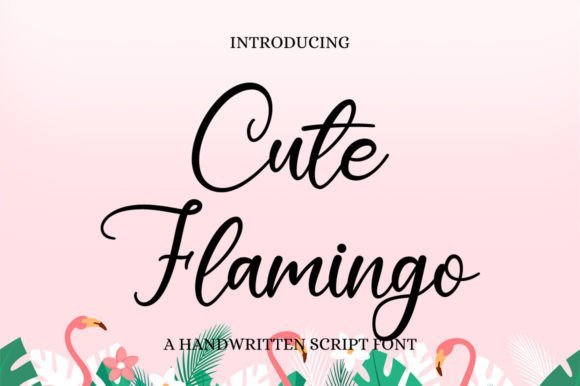
Remember the moment when a single font choice completely elevated your design project? For many of us, it’s a feeling of pure joy and accomplishment. Whether you’re a seasoned designer or a creative enthusiast, finding the right font can be a game-changer. In this article, we’ll introduce you to a font that’s sure to bring a smile to your face – the lovely and timeless Cute Flamingo Font.
This handwritten font is a dream come true for designers looking to add a personal touch to their logos, branding, and quotes. Its unique charm and character make it the perfect choice for creating eye-catching and memorable designs. With the Cute Flamingo Font, you’ll be able to infuse your work with a sense of whimsy and personality that’s sure to resonate with your audience.
Cute Flamingo Font Key Features
- Unique Characteristics: The Cute Flamingo Font features a playful, whimsical design with a distinctive flamingo-inspired motif, making it ideal for use in children’s books, magazines, and other publications that require a lighthearted tone.
- Font Style: The font is available in a single style, which is a sans-serif, script font with a rounded and cursive feel.
Cute Flamingo Font Review
Overall, I think the Cute Flamingo Font is a fun, quirky addition to any design project. It’s perfect for creating a lighthearted, playful atmosphere, and its uniqueness can help set your brand apart. ✨ I love how the font’s rounded edges and soft lines give it a friendly, approachable feel.
One of the things that really stands out about the Cute Flamingo Font is its versatility. It can be used for a wide range of applications, from logos and branding to social media graphics and packaging. ✨ It’s also highly customizable, making it easy to adapt to different design styles and color schemes.
While the Cute Flamingo Font is a lot of fun, there are a few limitations to be aware of. ⚠️ For one, the font may not be the best choice for serious or formal designs, as its playful nature may come across as unprofessional. Additionally, the font’s rounded edges can make it difficult to read in certain situations, such as at small font sizes or in dense text blocks.
In conclusion, the Cute Flamingo Font is a great choice for designers looking to add some personality and whimsy to their projects. While it may not be suitable for every design task, its unique style and versatility make it a valuable addition to any designer’s toolkit.
- Quirky, playful design style
- Wide range of applications
- May not be suitable for serious or formal designs
- May be difficult to read in certain situations
Cute Flamingo Font: A Practical Application Guide
Getting the Most Out of Cute Flamingo Font
To get the most out of Cute Flamingo Font, consider the following tips:
– Use the font for playful and creative projects, such as invitations and social media graphics.
– Experiment with different font sizes and colors to create visual interest.
– Combine the font with other fonts for a unique and eye-catching look.
Cute Flamingo Font is commonly used for:
– Children’s party invitations and decorations.
– Social media graphics and advertisements.
– Branding and logo design for playful and creative companies.